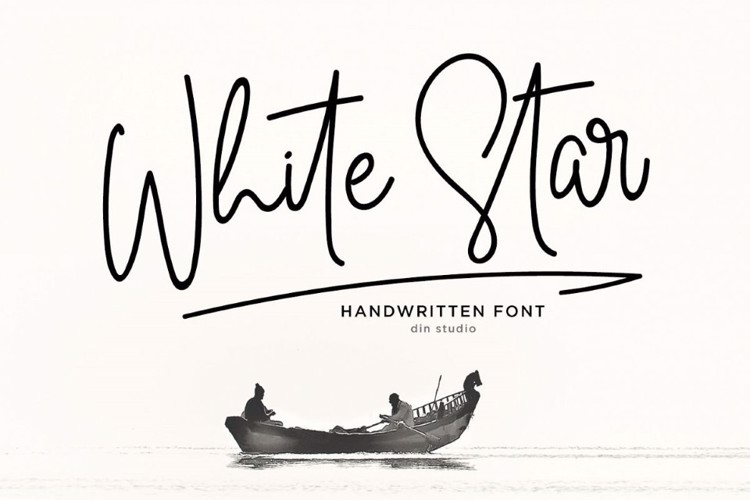
White Star Font
Introducing White Star for your amazing project design. With a chic and natural handwritten style, it brings a beautiful and chic typeface. White Star is best used for logotype, branding, wedding, and quotes.
Features:
•Beautiful Ligatures
•Multilingual Support
•Numerals and Punctuation